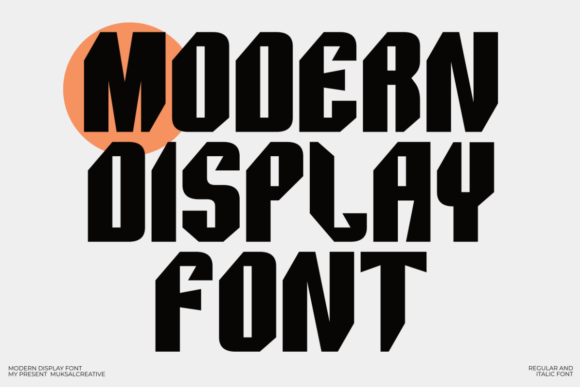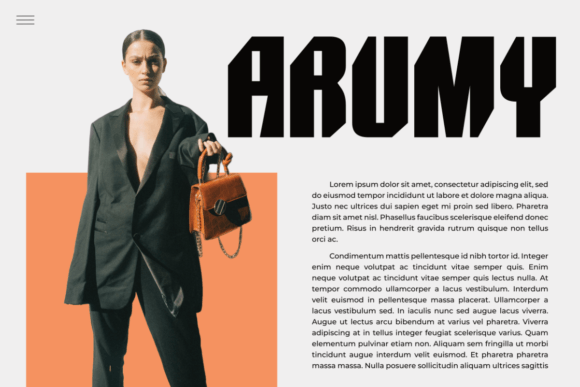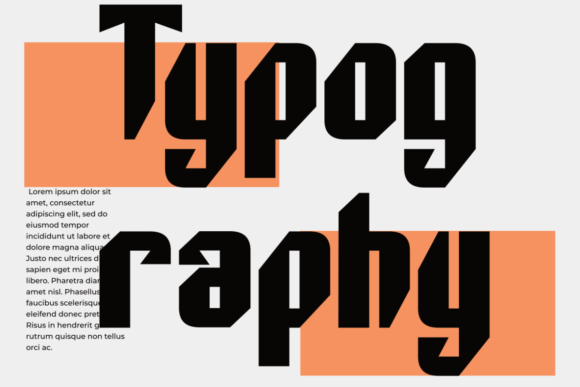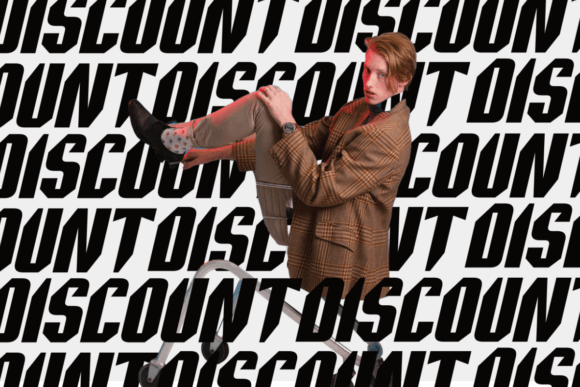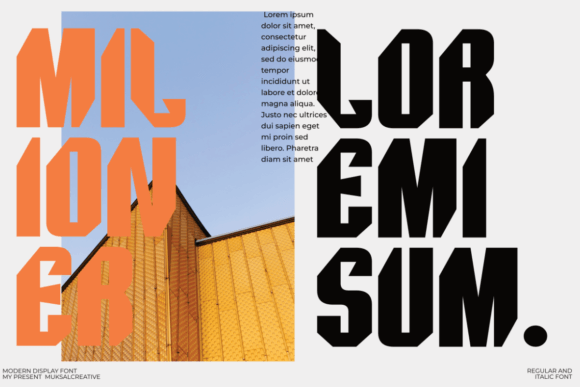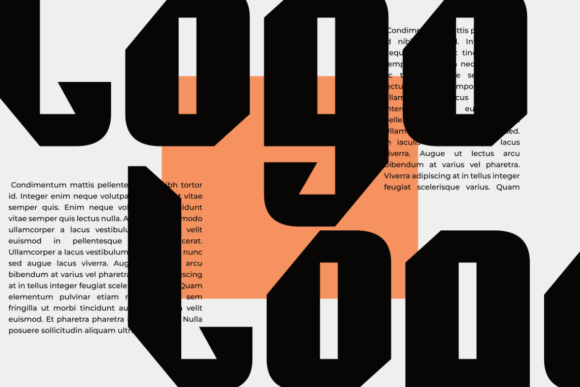
Introducing Bimounce Font: Elevate Your Designs with Modern Elegance
In the world of typography, fonts play a crucial role in shaping the visual identity of a design. A well-chosen font can elevate a project from ordinary to extraordinary, making it essential for designers and crafters to select a typeface that not only resonates with their creative vision but also communicates their message effectively. This is where Bimounce Font comes into play – a modern display font designed to blend contemporary style with versatile functionality.
The Essence of Bimounce Font
Bimounce is more than just a font; it’s a design statement. Crafted with precision and a keen eye for detail, Bimounce offers a sleek and sophisticated aesthetic that can instantly elevate any project. Its clean lines and distinctive characters are engineered to capture attention and ensure that your designs leave a lasting impression. Whether you’re working on a branding campaign, creating eye-catching posters, designing elegant invitations, crafting engaging social media graphics, or building a website, Bimounce provides the perfect balance of elegance and readability.
Versatility at Its Core
One of the standout features of Bimounce Font is its versatility. In today’s fast-paced digital landscape, designers need fonts that can adapt to various mediums and applications. Bimounce rises to this challenge by offering a flexible design that can seamlessly transition from digital platforms to print materials. This adaptability makes it an excellent choice for a wide range of design projects, ensuring that your work maintains its visual impact across different contexts.
Designed for Impact
Bimounce is not just about aesthetics; it’s also designed with functionality in mind. The font’s modern and clean design ensures that it remains highly legible, even at smaller sizes. This is particularly important in today’s digital age, where designs are often viewed on a variety of devices and screen sizes. With Bimounce, you can confidently use it across different mediums, knowing that your message will be conveyed clearly and effectively.
Applications of Bimounce Font
The applications of Bimounce Font are vast and varied. Here are a few examples of how this versatile font can be used:
- Branding: Create a memorable brand identity with Bimounce’s distinctive and elegant style.
- Posters and Flyers: Grab attention with Bimounce’s bold and contemporary aesthetic.
- Invitations: Add a touch of sophistication to your invitations, making any event feel special.
- Social Media Graphics: Elevate your social media presence with visually striking graphics.
- Web Design: Enhance your website’s typography, making it more engaging and user-friendly.
Why Choose Bimounce?
Choosing Bimounce Font for your design projects comes with numerous benefits:
- Unique Style: Stand out from the crowd with Bimounce’s unique and modern design.
- High Readability: Ensure your message is communicated effectively without compromising on style.
- Versatility: Use Bimounce across various design projects and mediums.
- Ease of Use: Bimounce is easy to integrate into your design workflow, making it a hassle-free addition to your projects.
Bimounce Font is a powerful tool for designers and crafters looking to elevate their projects with a modern and elegant typeface. Its blend of contemporary style, versatility, and readability makes it an excellent choice for a wide range of design applications. With Bimounce, you have the opportunity to transform your designs, making them more visually striking and impactful. Whether you’re a professional designer or a DIY enthusiast, Bimounce is poised to become an indispensable part of your creative toolkit.
Embrace the power of Bimounce Font in your next design project and experience the difference it can make. Elevate your designs, captivate your audience, and leave a lasting impression with the modern elegance of Bimounce.